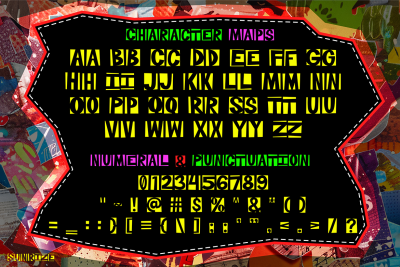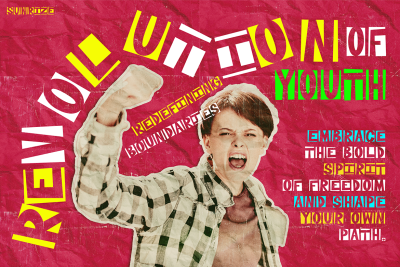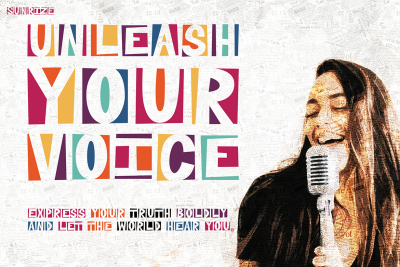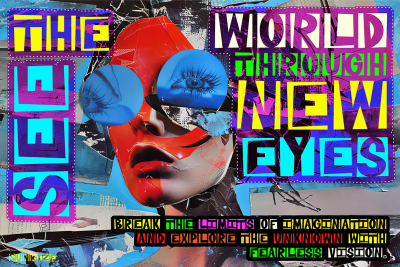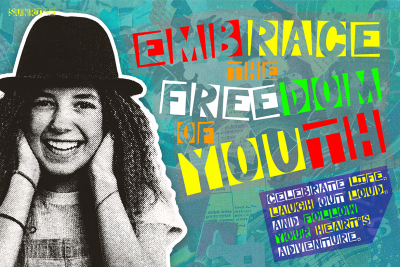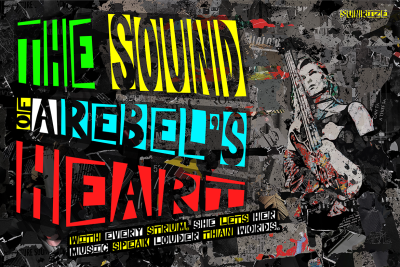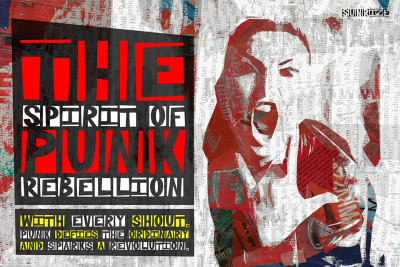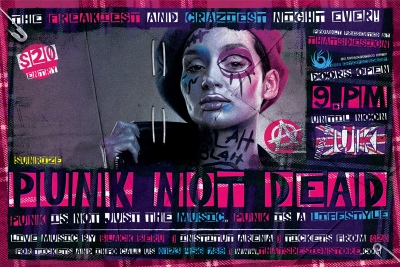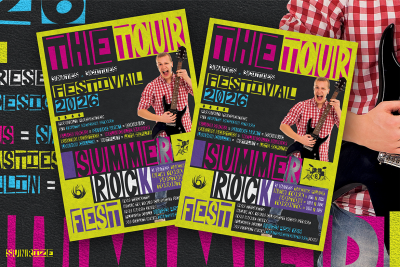
Music Font Sunrize is the perfect choice for those seeking a vibrant and energetic typeface to amplify their designs. With bold colors, eclectic shapes, and lively character, this font captures the essence of creativity and excitement. Moreover, it is inspired by the rhythm and vibrance of music culture, making it ideal for album covers, event posters, and merchandise. It works well in other projects that aim to convey an artistic and dynamic aesthetic. Its unique design ensures your work captures attention and leaves a lasting impression.
The playful style of Sunrize reflects its versatility, making it suitable for diverse creative industries. Whether youโre branding a music festival, crafting a logo for a band, or designing an urban-inspired piece, this typeface adds vitality to your composition. Furthermore, its combination of bold outlines and vivid colors ensures legibility while offering a visual feast for the audience. Additionally, it seamlessly blends with modern trends, making it a go-to choice for designers seeking something unconventional.
Music Font Sunrize is more than just a typeface; itโs a statement of creativity and individuality. Its vibrant, patchwork-inspired style brings an edge to any project, and it perfectly complements themes of diversity, energy, and innovation. Designed with artists, designers, and music enthusiasts in mind, this font breaks away from conventional typography. Consequently, it embraces a design language thatโs truly unique and attention-grabbing.
Additionally, Sunrize integrates seamlessly with digital and print mediums, making it a versatile tool for a wide range of applications. Moreover, its bold and energetic design resonates with audiences, creating an emotional connection that enhances your message. By choosing Music Font Sunrize, youโre selecting a font that infuses your designs with fun, excitement, and artistic freedom.
Whether youโre working on promotional material, digital campaigns, or artistic collaborations, this fontโs flexibility ensures it meets the demands of any creative challenge. Furthermore, its distinctiveness makes it a powerful asset for standing out in a competitive market.